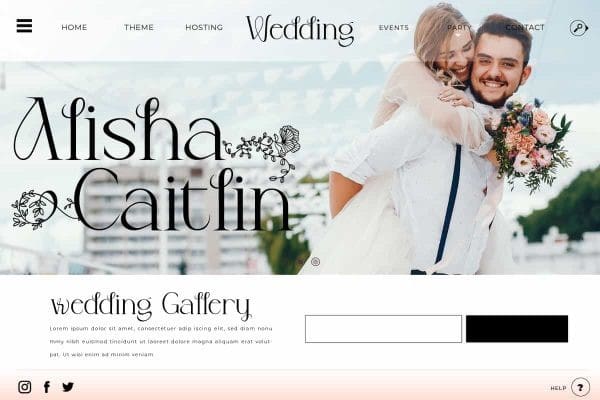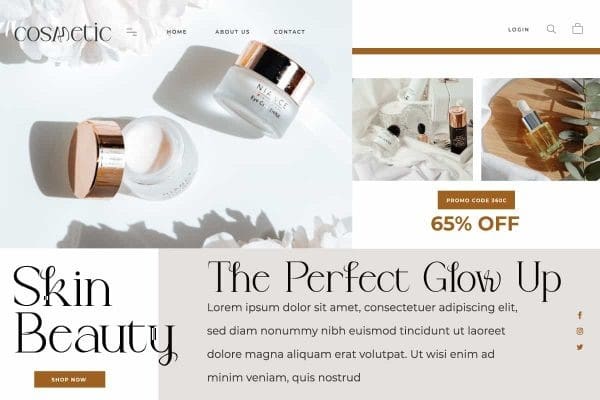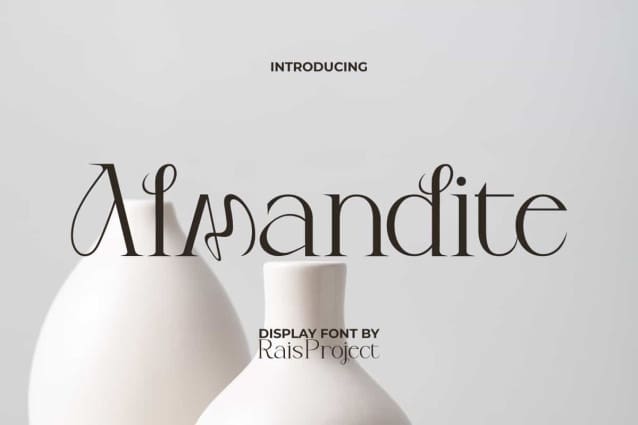
Almandite Font
Almandite Font is an elegant and beautiful aesthetic sans serif display font designed by RaisProject. This font has sleek and unique swirl to make it outstanding. It will be good for any designs, such as brand image, cover, custom design, flyer, invitation, label, magazine, marketing material, menu, poster, product packaging, quotes, signage, stationery, website page, and more!
Almandite Font including a complete set of basic Uppercase and Lowercase characters, Numerals, and large range of Punctuation. This font also suitable for various industries, such as accessories, advertising, beauty product, cafe, crafting, fashion, home furniture, jewelry, marketing, movie, printing, publishing, real estate, restaurant, spa salon, wedding organizer, etc.